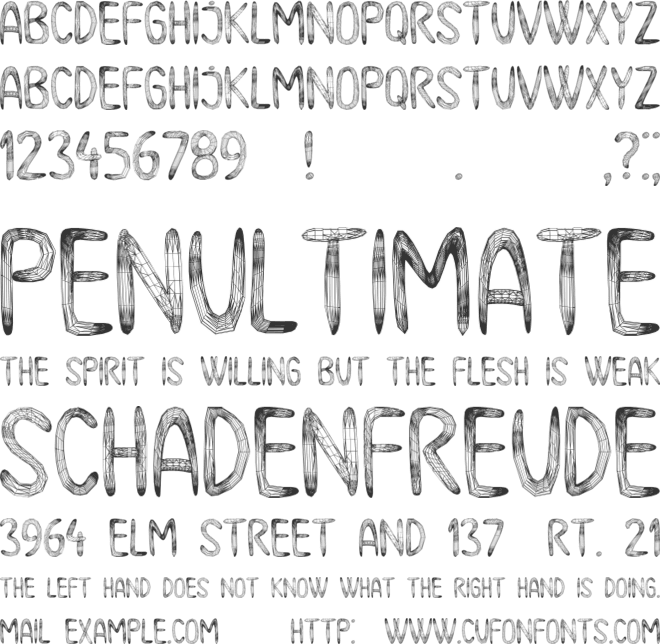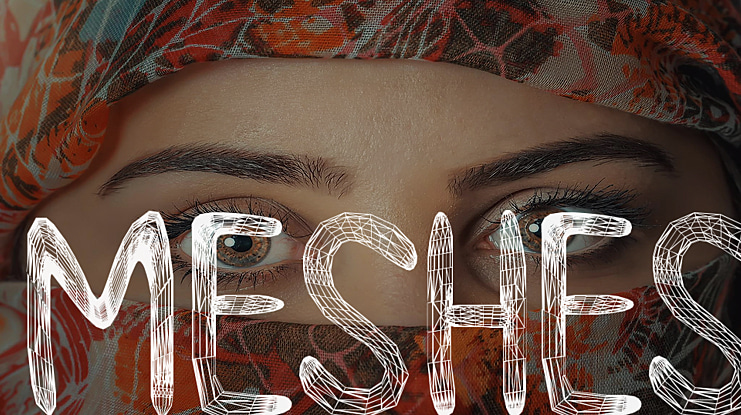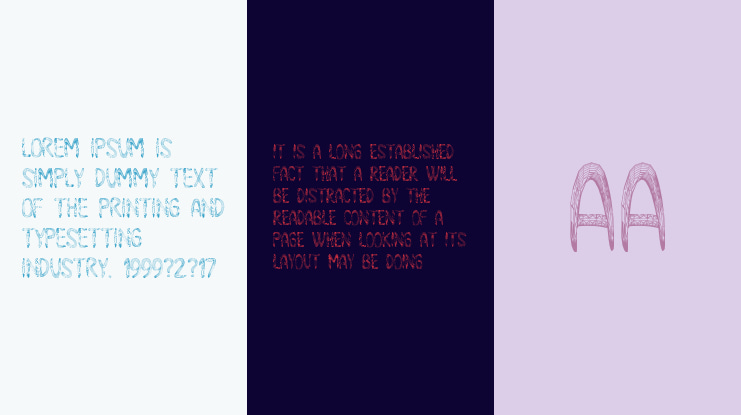
Meshes Font
Vladimir Nikolic
The Meshes is a great font done in a 3D textured decorated style. It will look great on any flyer, banner or t-shirt. Free for personal use. For commercial use, please order a license here: https://www.creativefabrica.com/product/meshes/ref/144265/